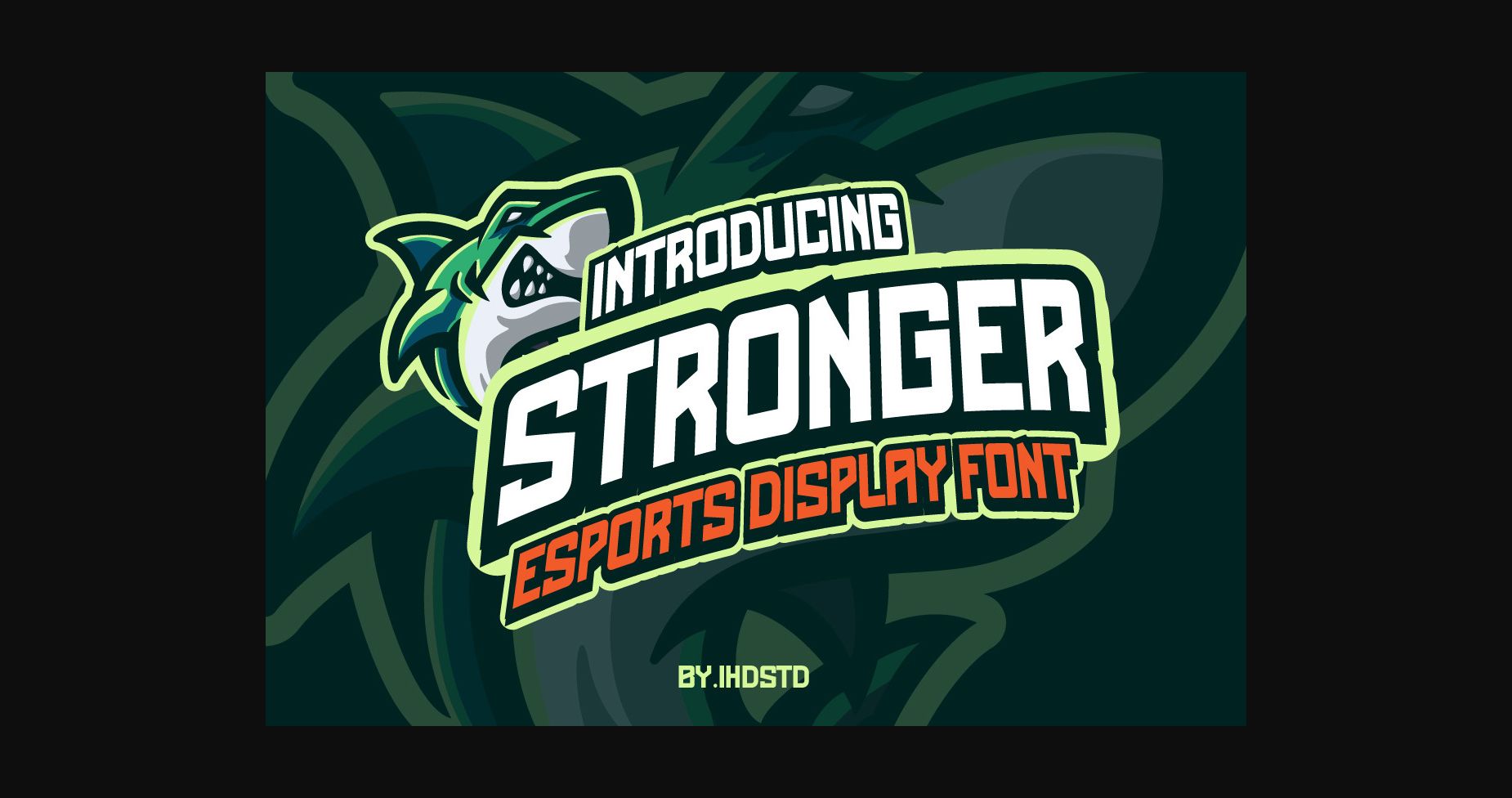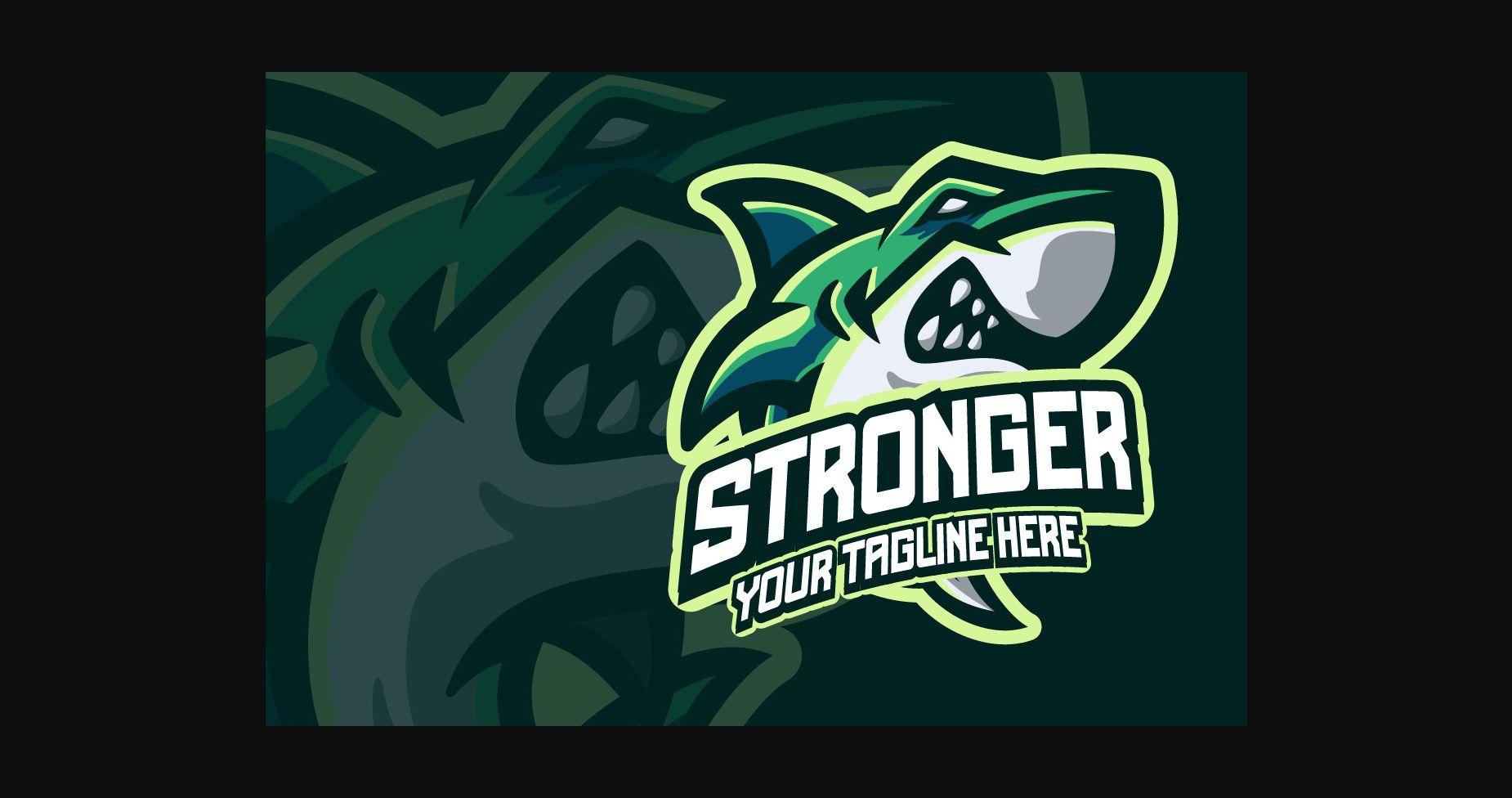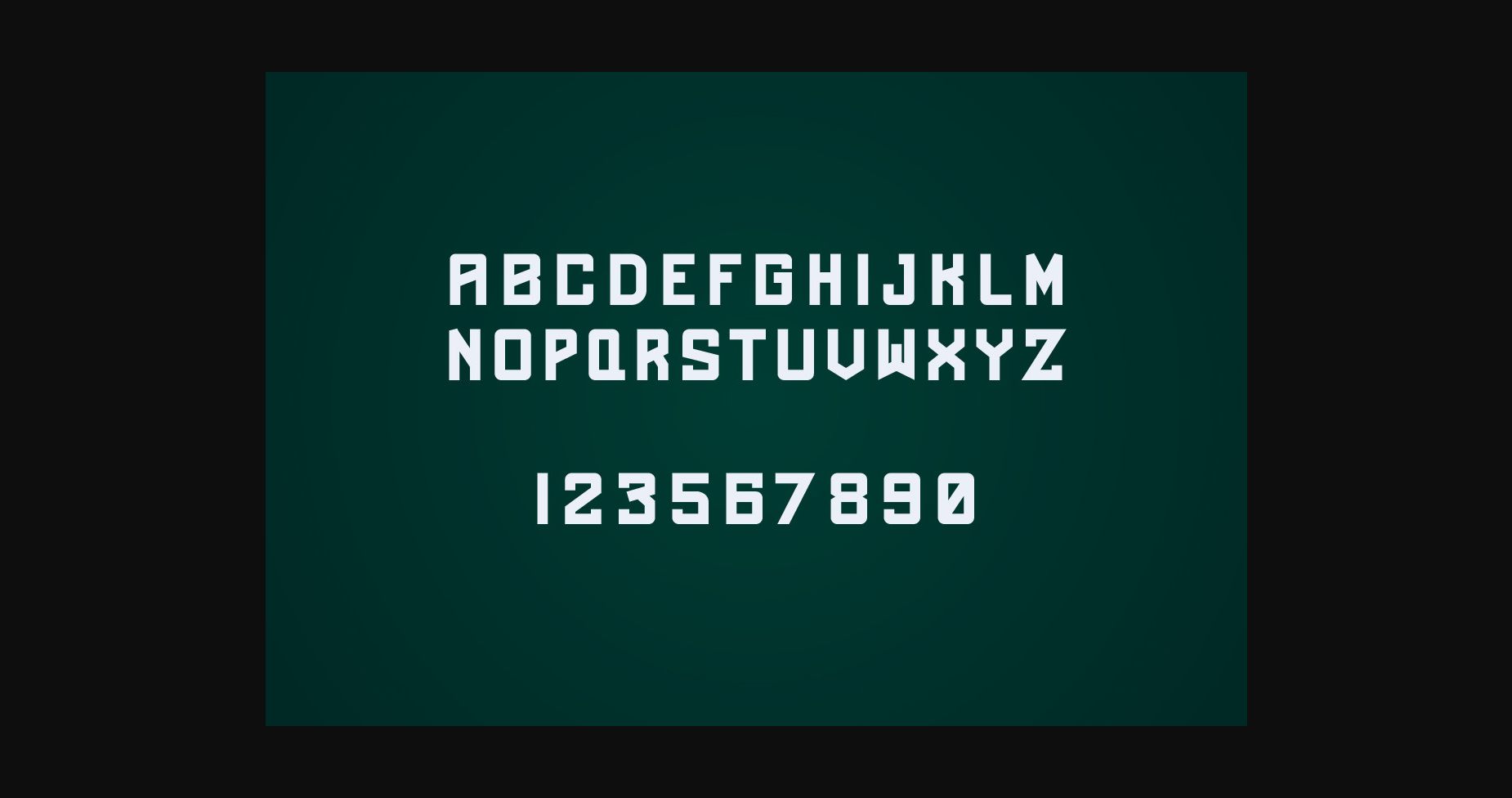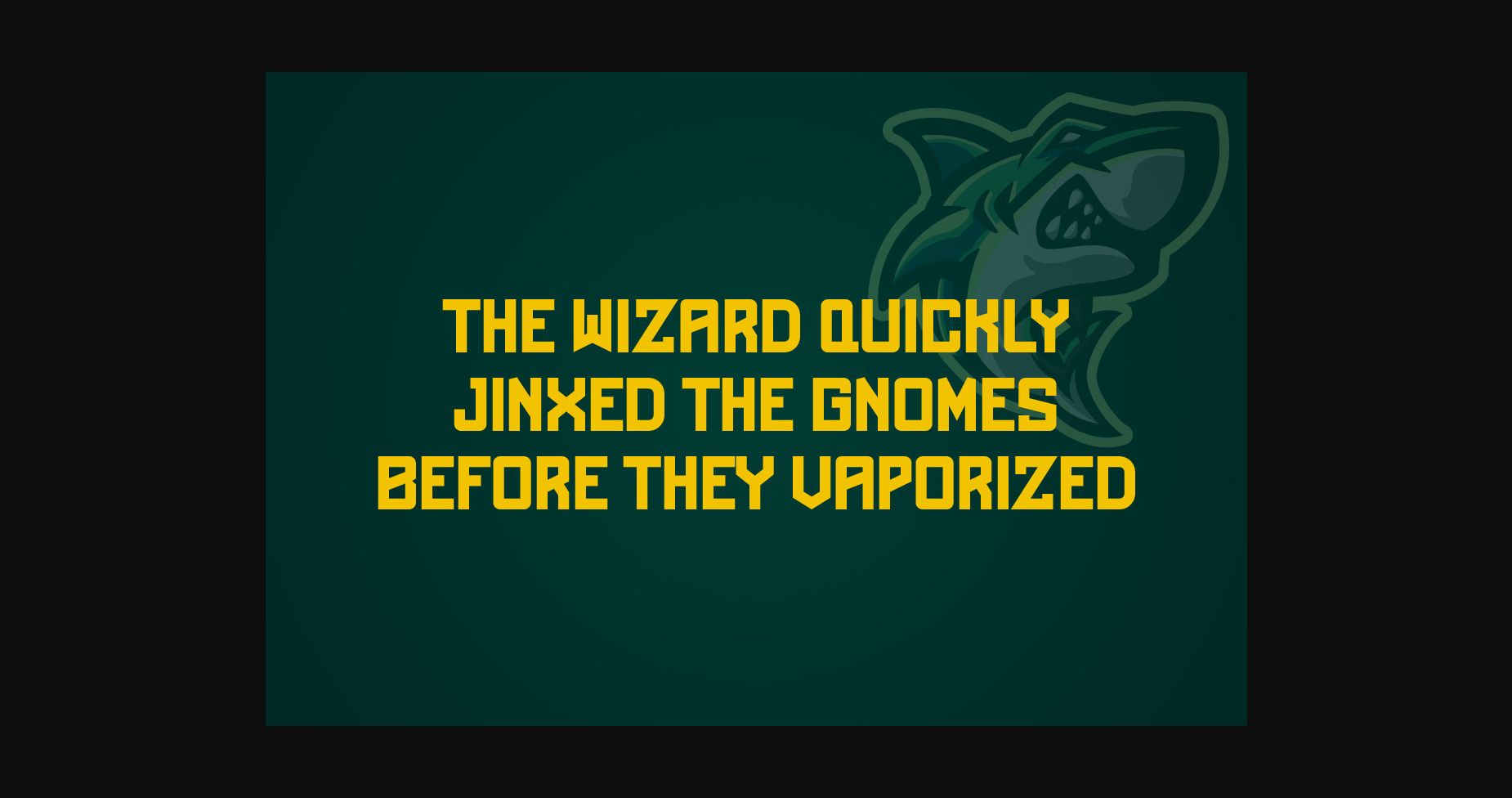
HomeSans Serif FontsStronger Font Sans Serif Fonts Stronger Font FacebookXPinterestWhatsApp 1 of 6 ... Stronger Font Poster 2... Stronger Font Poster 3... Stronger Font Poster 4... Stronger Font Poster 5... Stronger Font Poster 6... About Stronger Font Stronger is a bold and simple display font. Simple and easy to use, this font will be very beautiful if you mix it with your various craft designs. DOWNLOAD NOW People also explored Alarate Script Tall Grass Font Swess Font Staychil Font Jump Royce Font Beaversa Font Alifia Font Holiday Party Font Wigenda Typewrite Font 363 0 TagsStronger Font Previous articleRoutine FontNext articleCapadocia Font LEAVE A REPLY Cancel reply Comment: Please enter your comment! Name:* Please enter your name here Email:* You have entered an incorrect email address! Please enter your email address here Website: Save my name, email, and website in this browser for the next time I comment. Personal Use Free Drip October Font Personal Use Free Read more about this font Eloquence Personal Use Free Read more about this font Septhine Personal Use Free Read more about this font Farmhouse Christmas Personal Use Free Read more about this font BLOG Where to Buy American Fonts Online in 2024 Where to Buy American Fonts Online: The Ultimate Guide for 2024 Looking for the perfect American font to elevate your design projects? You're in the... How to Install and Use Fonts on Windows, macOS, and Web Projects Best Fonts for T-Shirt Design – Top 2025 Picks Best Fonts for YouTube Videos: Make Your Thumbnails Stand Out